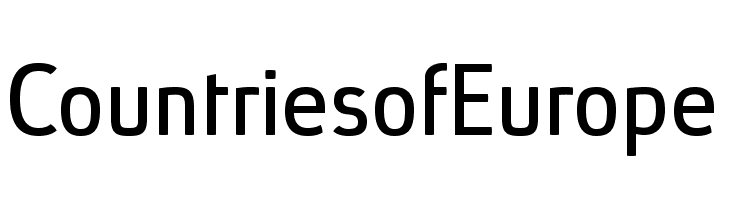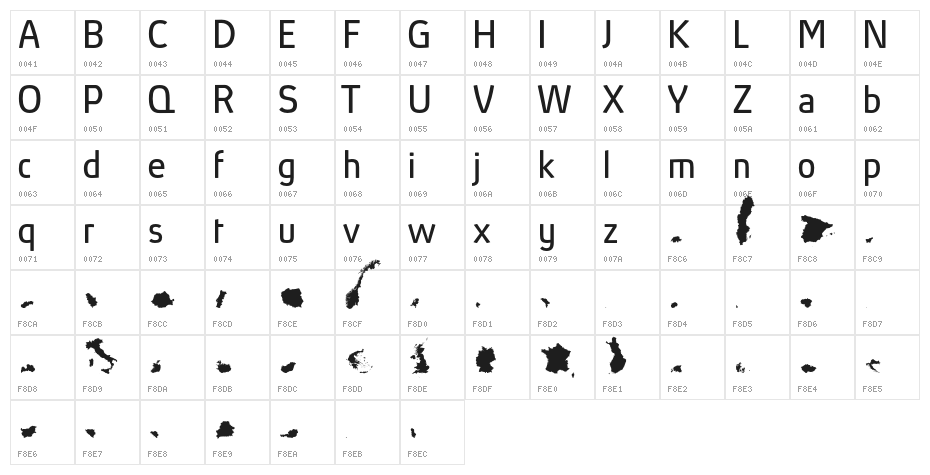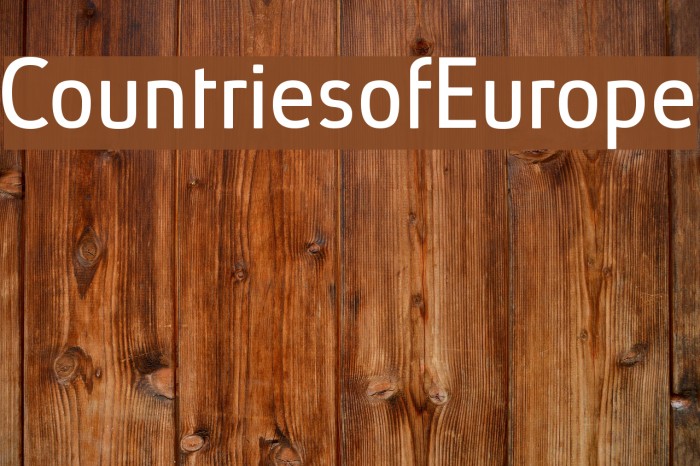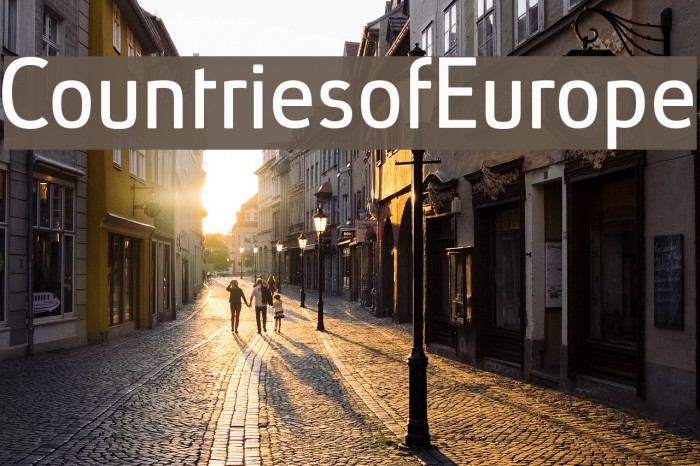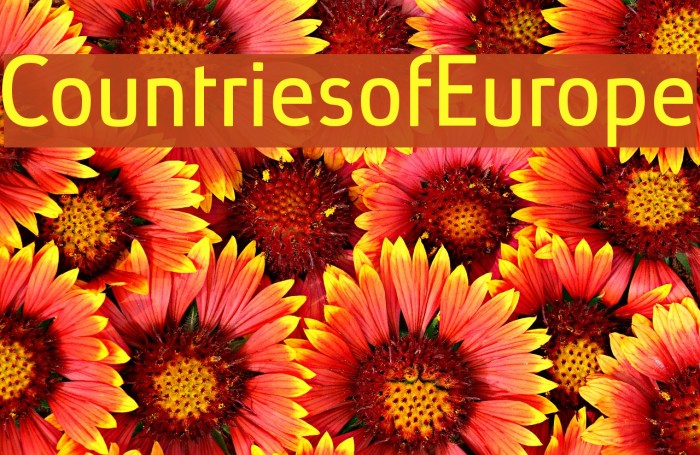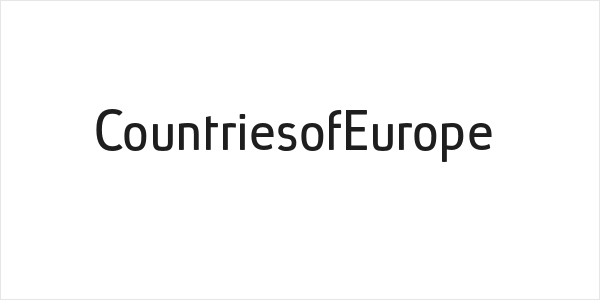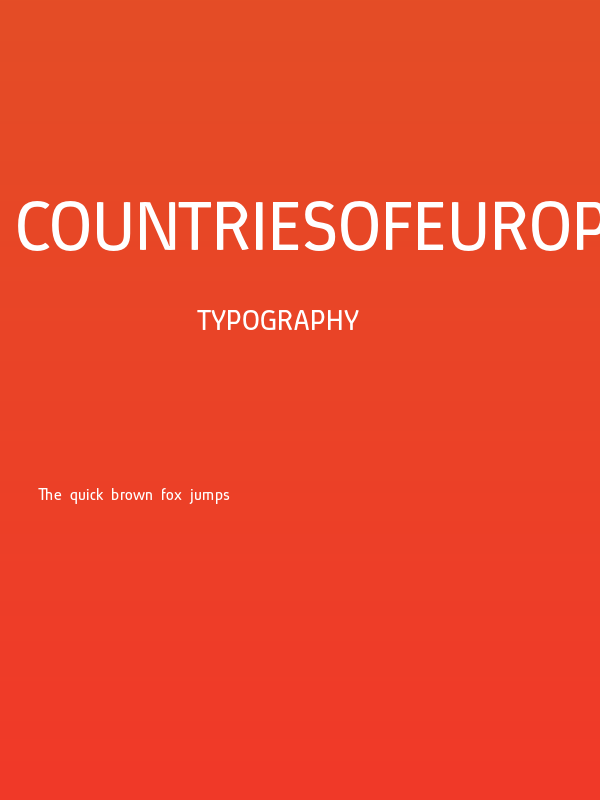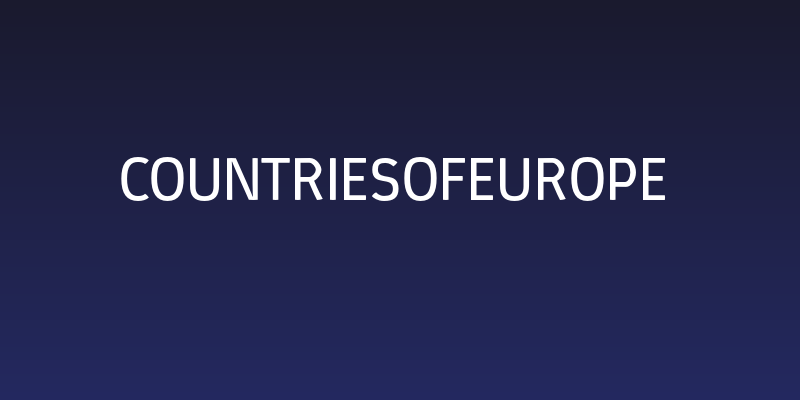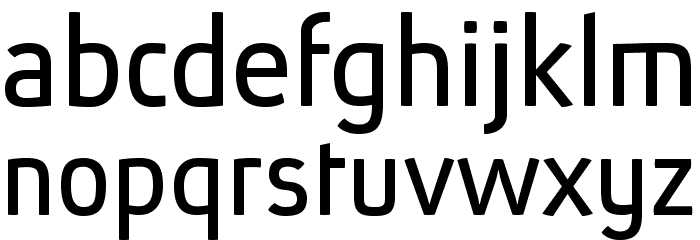
CountriesofEurope Font
CountriesofEurope Description
This font features a clean and modern sans-serif design, characterized by its geometric shapes and uniform stroke widths. The uppercase letters are bold and assertive, while the lowercase letters maintain a consistent height, contributing to a balanced and harmonious appearance. The numerals are clear and easily distinguishable, making them suitable for various applications. The special characters are designed with simplicity in mind, ensuring they complement the overall aesthetic. This font is versatile, offering readability and a contemporary feel, making it ideal for digital and print media.
Use CaseHeadlines, Body text, Logos
Proposed ProjectsIdeal for branding, web design, advertising, and editorial projects.